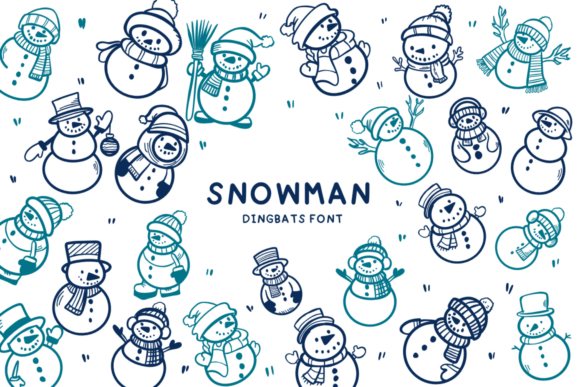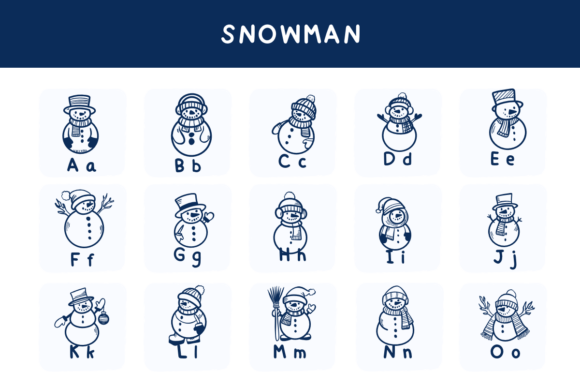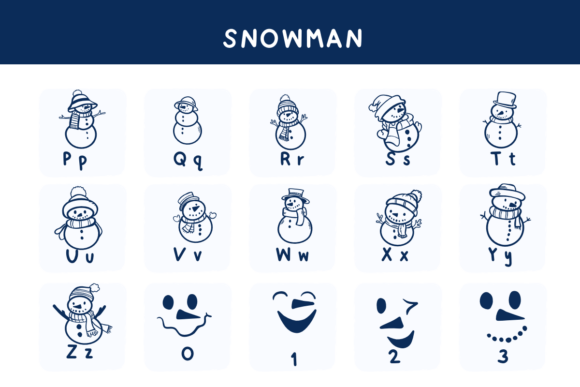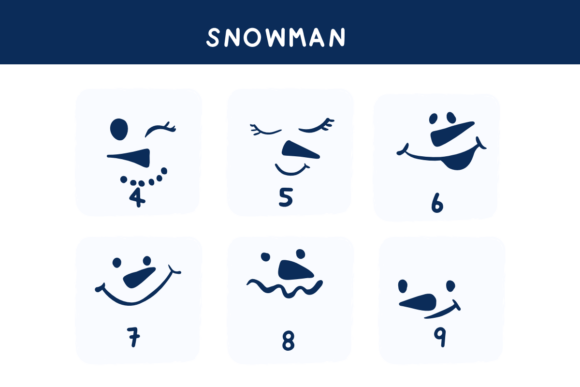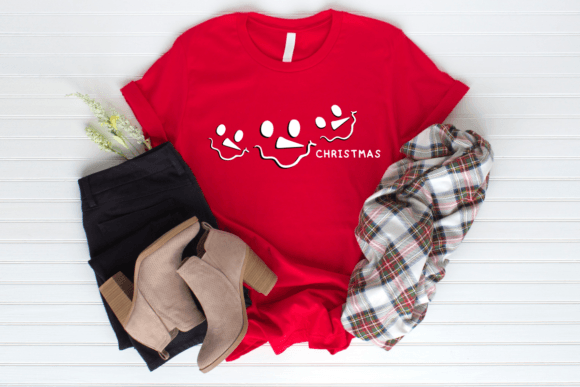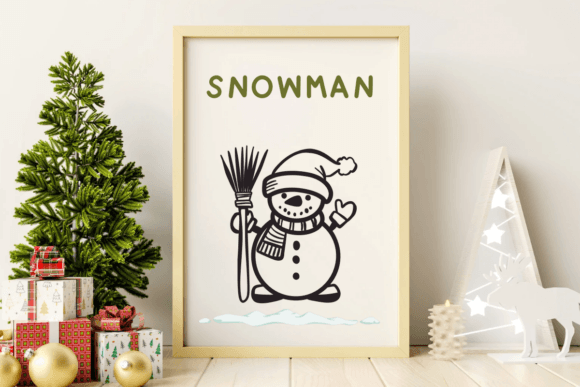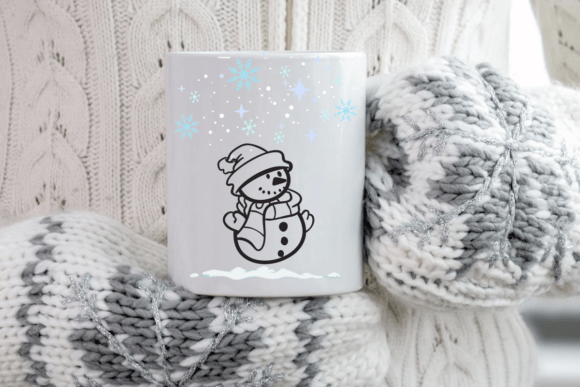
Snowman Font
Introducing Snowman, a dingbats font, meticulously designed with an artistic sketch style. This innovative font is perfect for infusing your imaginative projects with a dose of creativity. Whether it’s for invitations, DIY endeavors, crafts, decorations, logos, or myriad other imaginative ideas, Snowman’s unmistakably unique appeal will effortlessly elevate your designs.